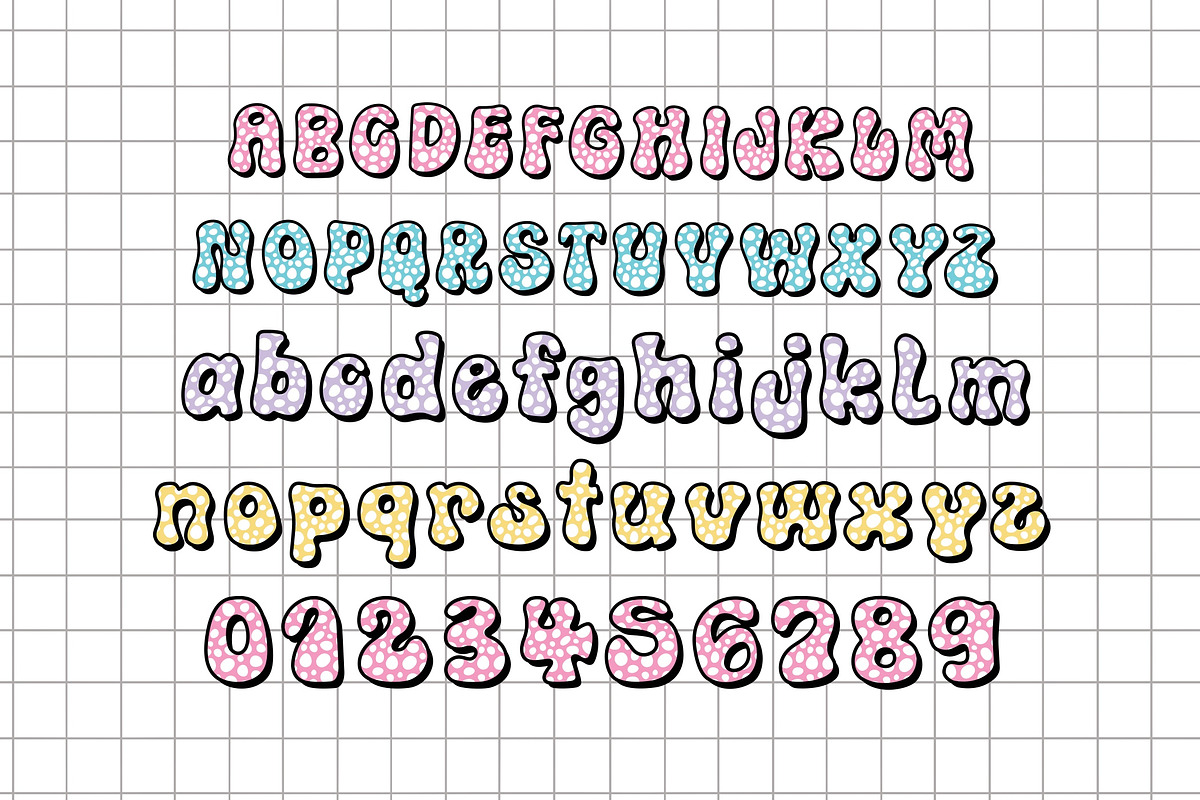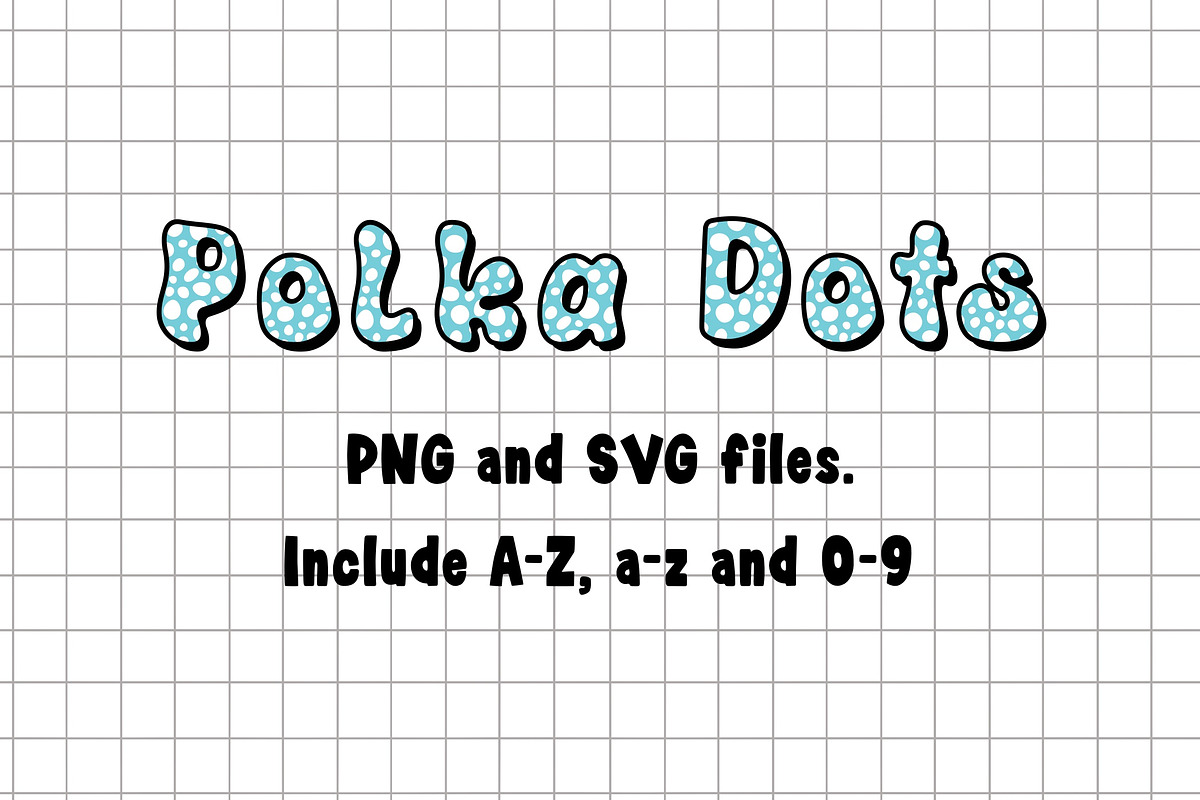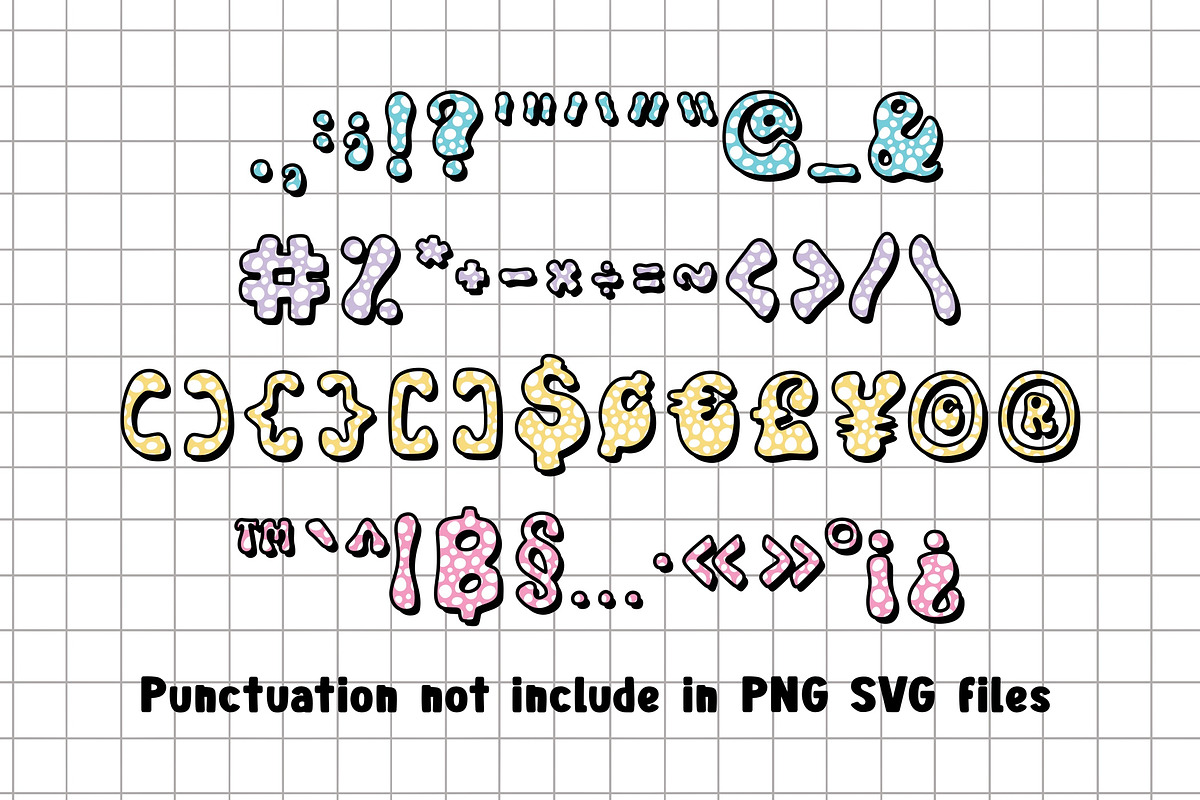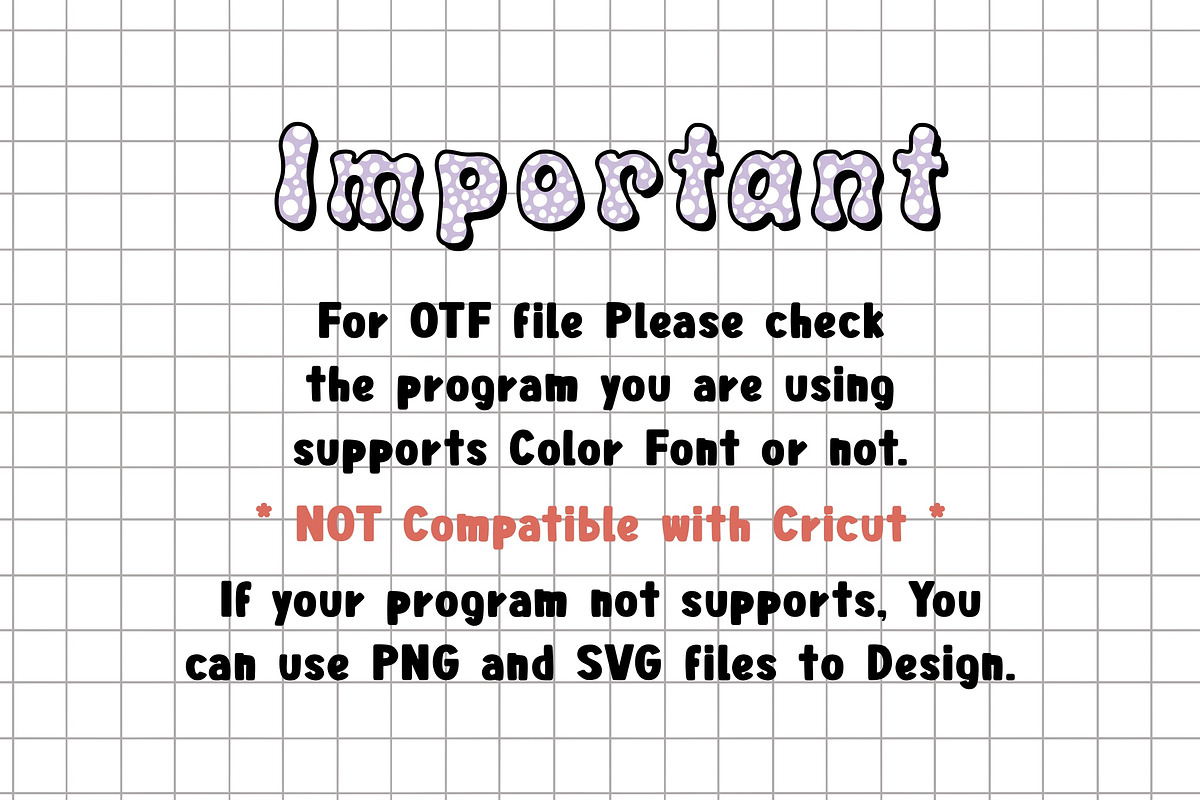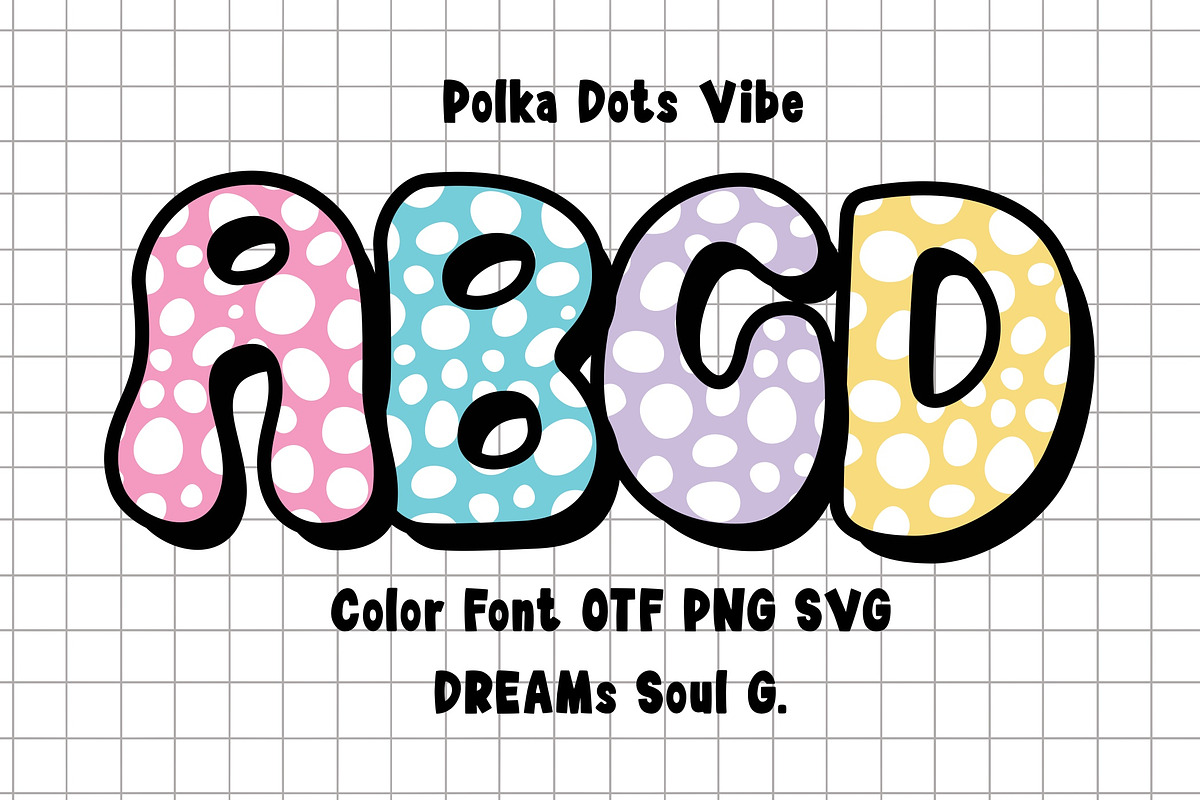
Add a splash of joy to your designs with Polka Dots Vibe, a vibrant and whimsical color font that brings playful energy to any project. Each bold letter is filled with cheerful polka dot patterns and outlined in black for maximum impact. Perfect for children’s designs, party invitations, posters, and educational materials.